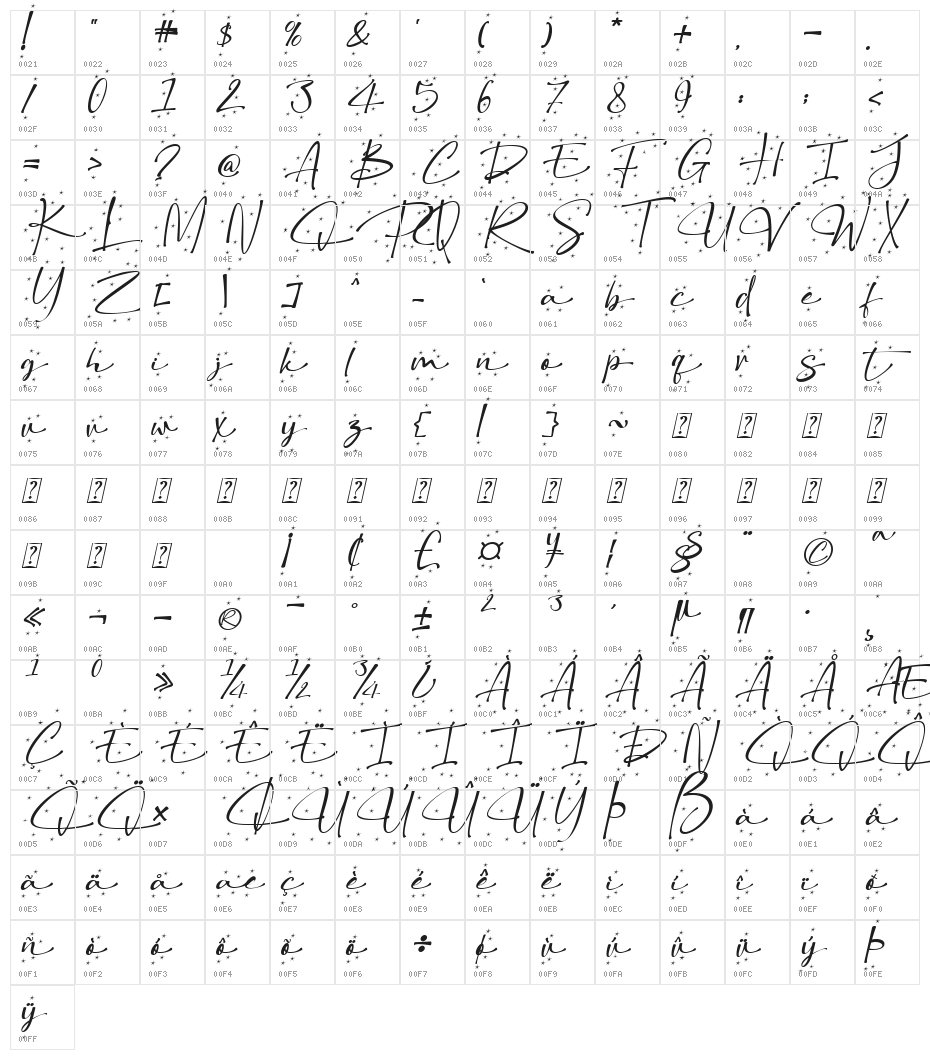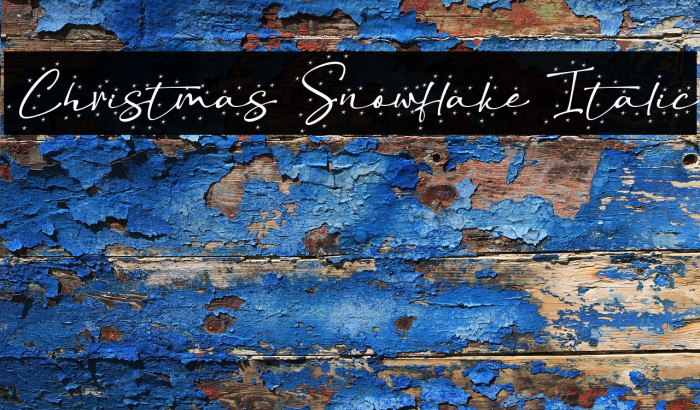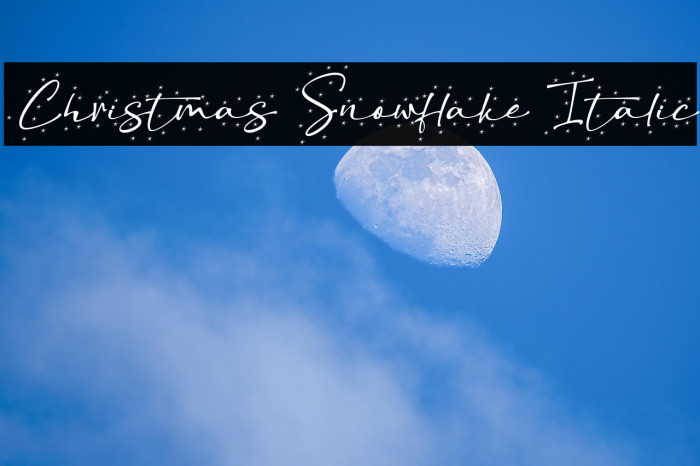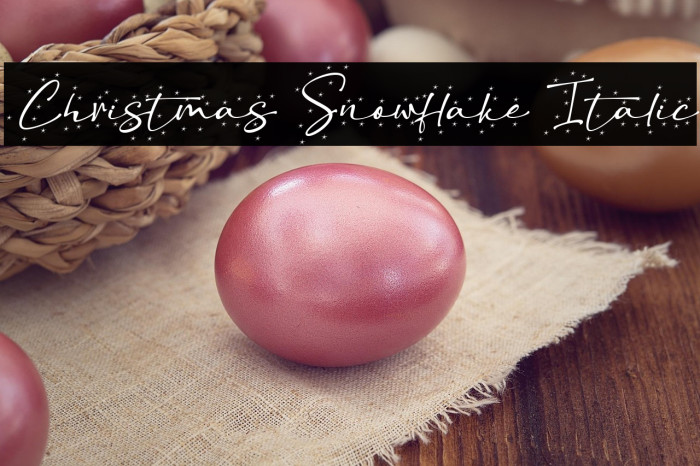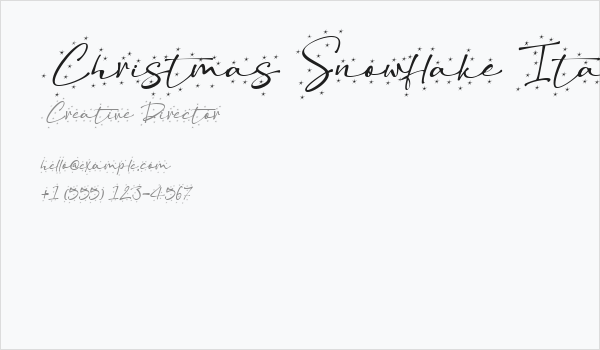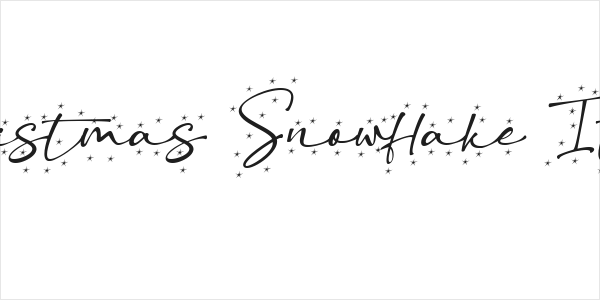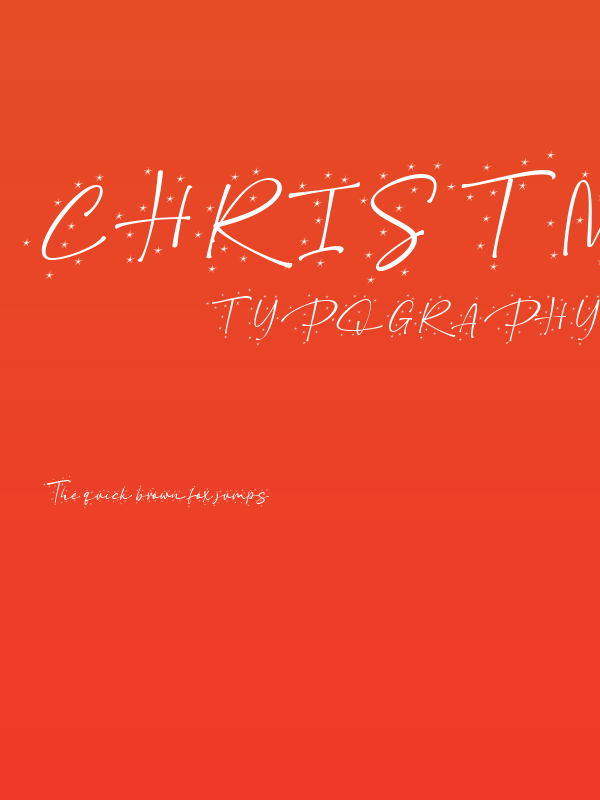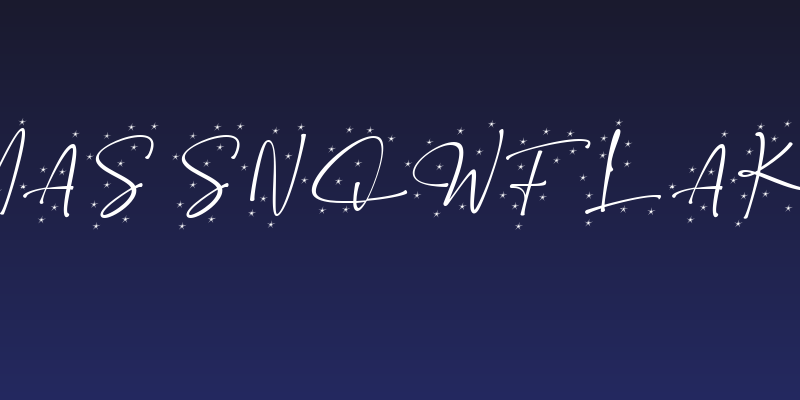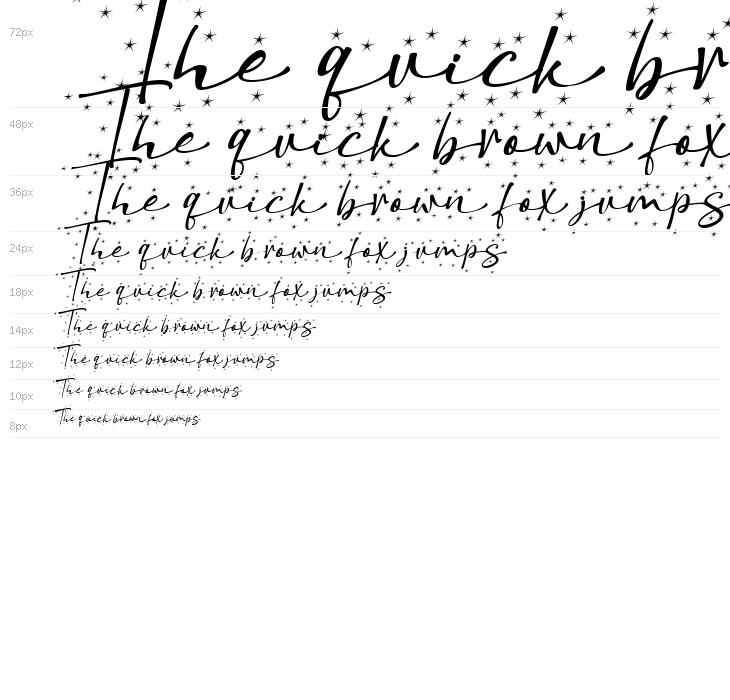
Christmas Snowflake Italic Font
Christmas Snowflake Italic Description
This whimsical and festive font features a playful, handwritten style with a unique twist. Each character is adorned with delicate snowflake-like embellishments, adding a touch of holiday magic. The letters are slanted, giving an italicized appearance that enhances the dynamic and lively feel. The strokes are smooth and flowing, with moderate contrast between thick and thin lines, creating an elegant yet approachable look. This font captures the essence of winter festivities, making it perfect for seasonal designs.
| Use Case | Headlines, Logos, Decorative text |
| Proposed Projects | Ideal for holiday cards, festive invitations, seasonal branding, and decorative posters. |